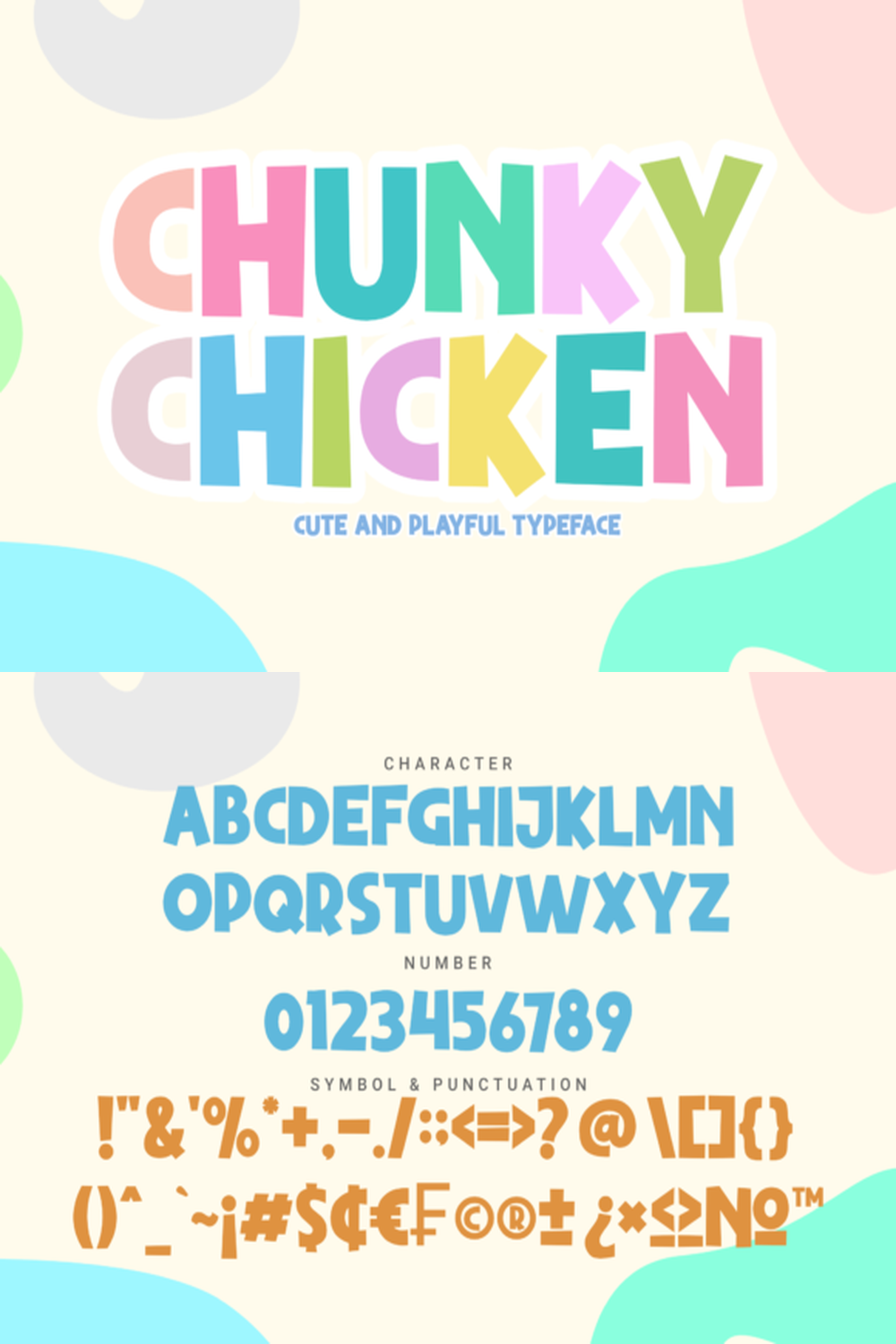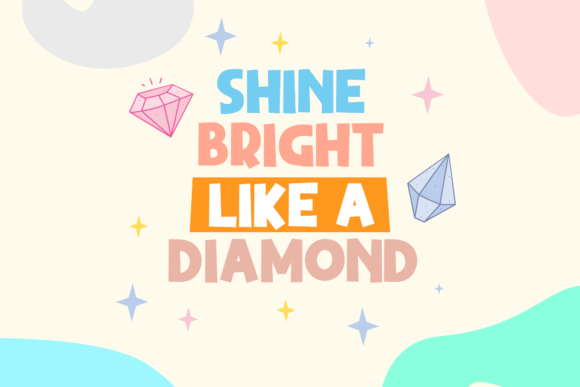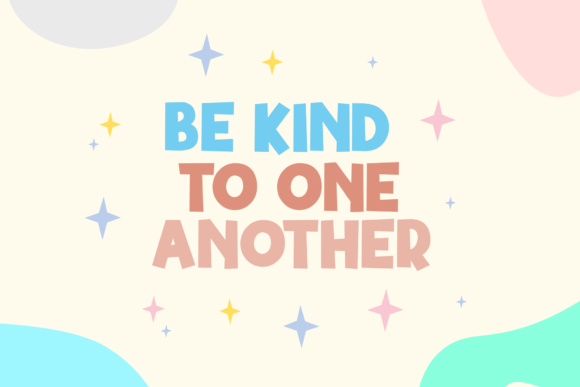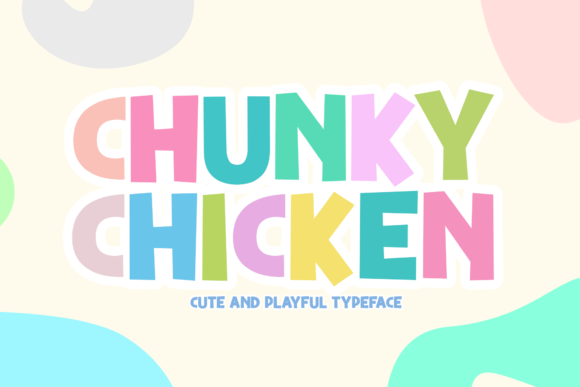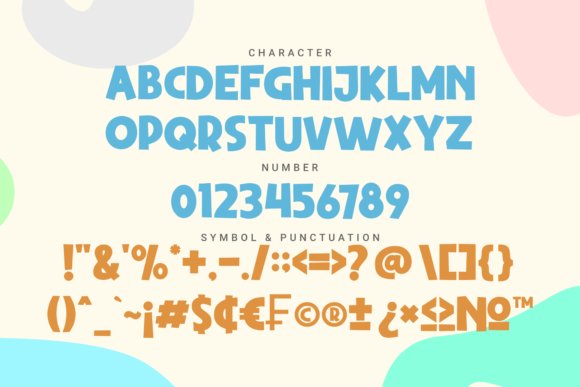
Chunky Chicken Font: A Cute Display Font for Playful DIY Designs
About the Chunky Chicken Font
Discover the charm of Chunky Chicken Font. This font is a perfect blend of modern aesthetics and classic appeal. Chunky Chicken is a cute yet chunky lettered display font. Its unique shape is very suitable for game designs, animation, product packaging, posters, sports, music and much more!